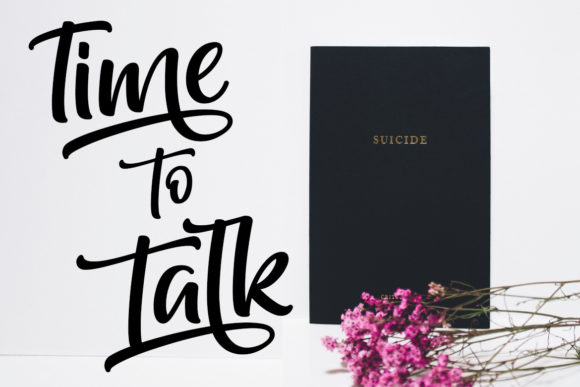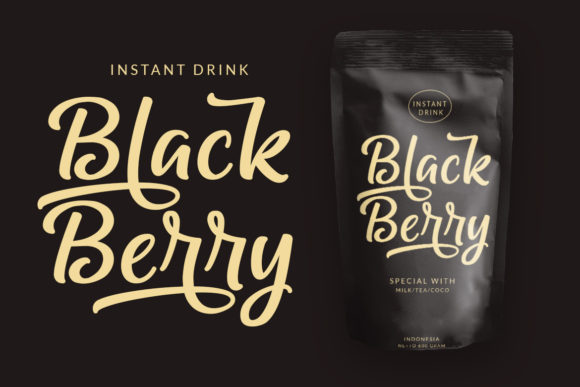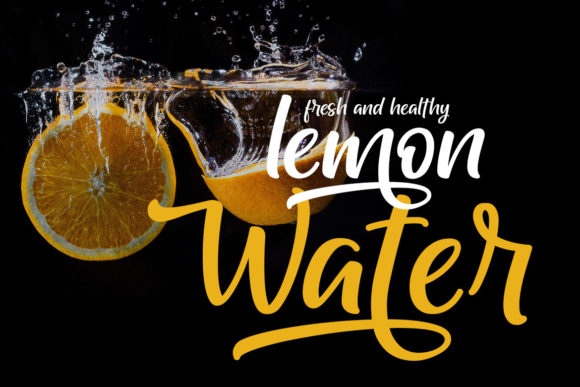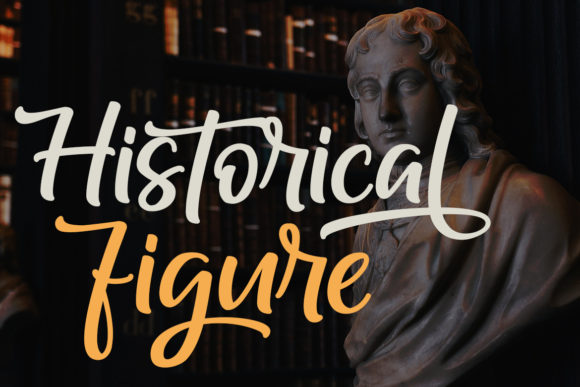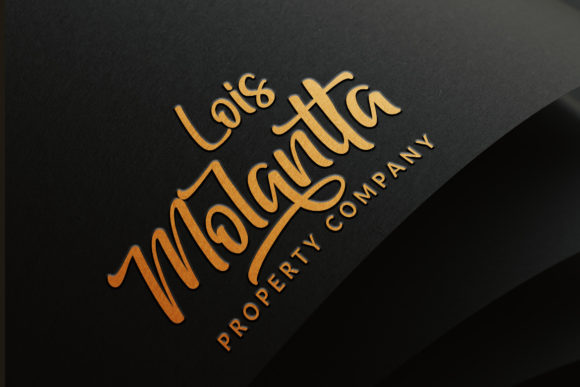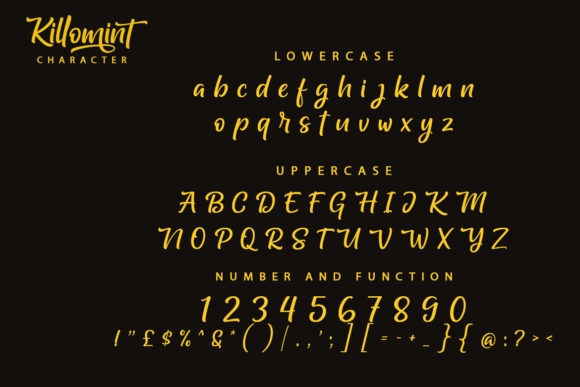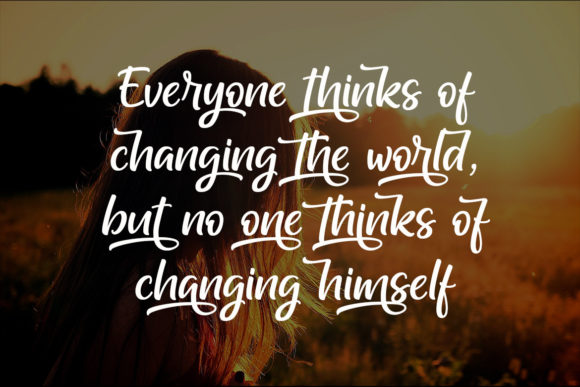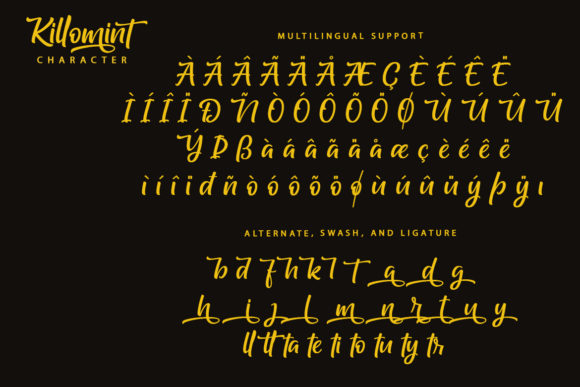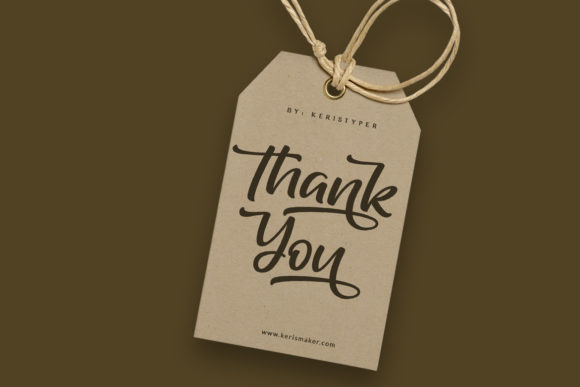
Killomint Font
About Killomint Font
Killomint is a gorgeous script font with a nice, smooth flow. The basic letters are simple but modified with stylistics to appear more attractive. This font is PUA encoded, which means you can access all of the glyphs and swashes with ease!